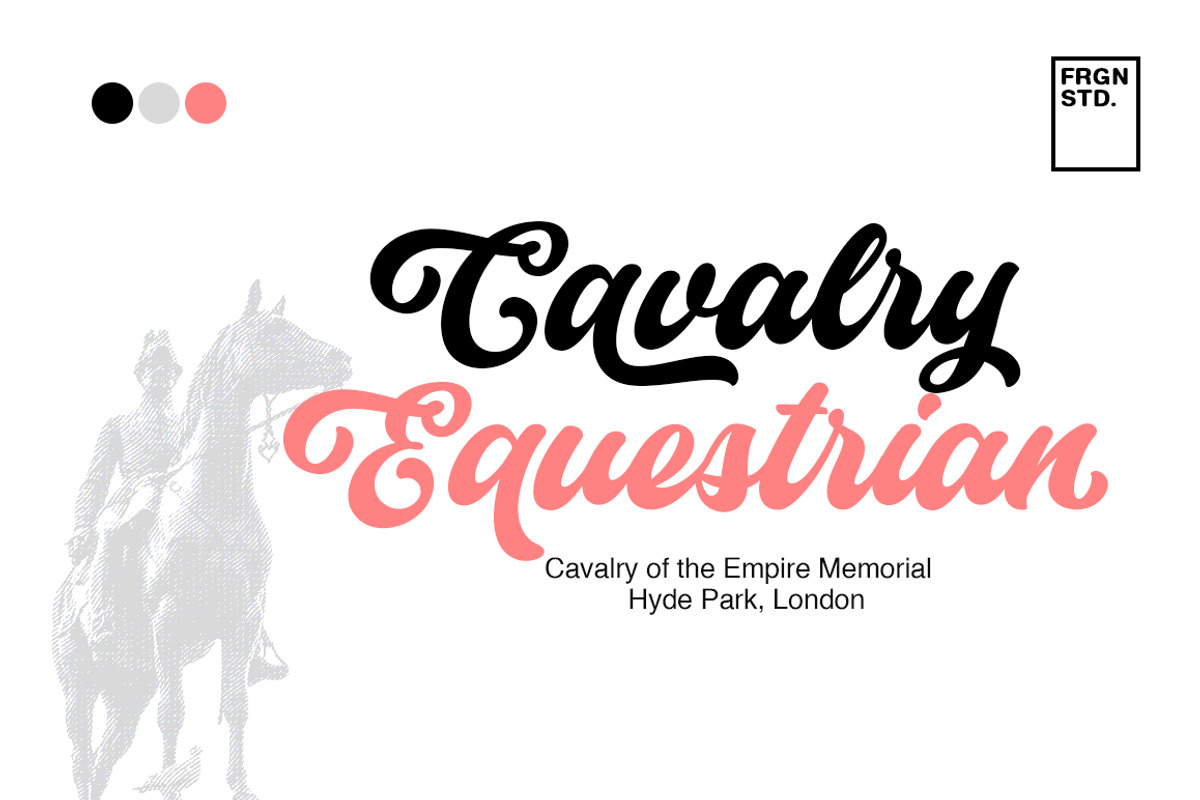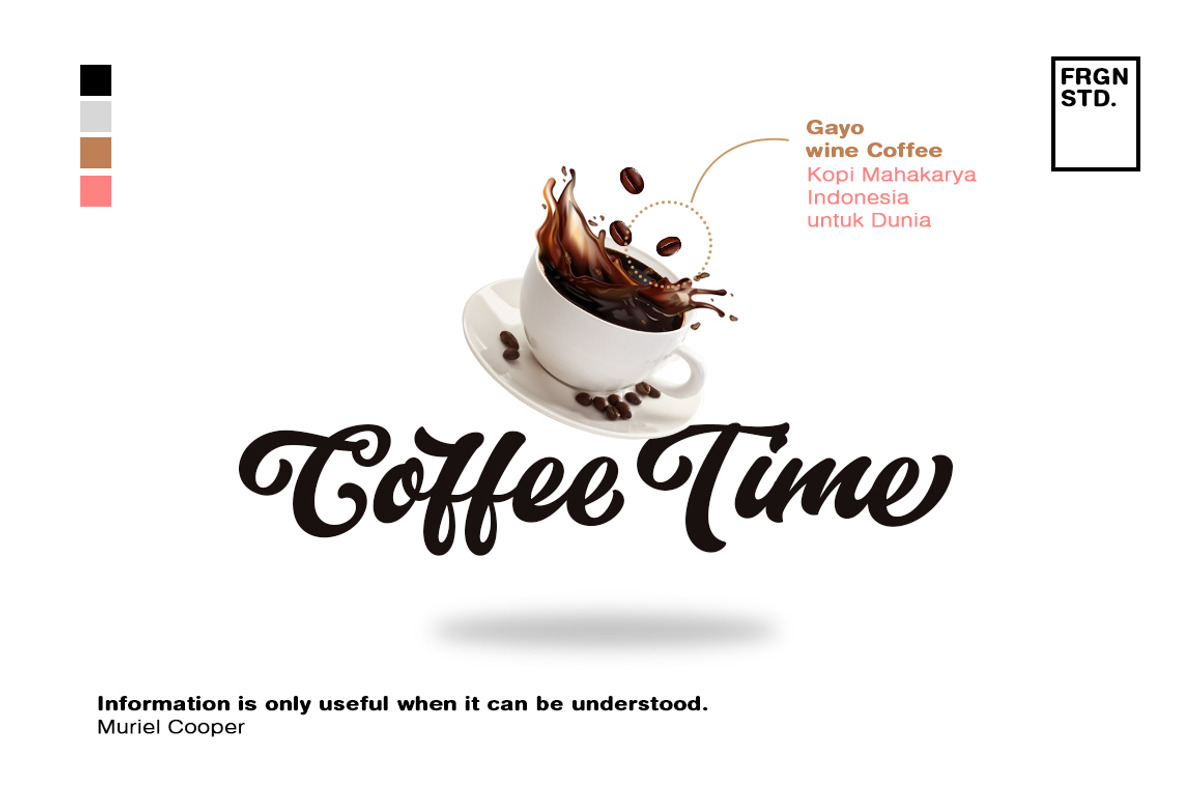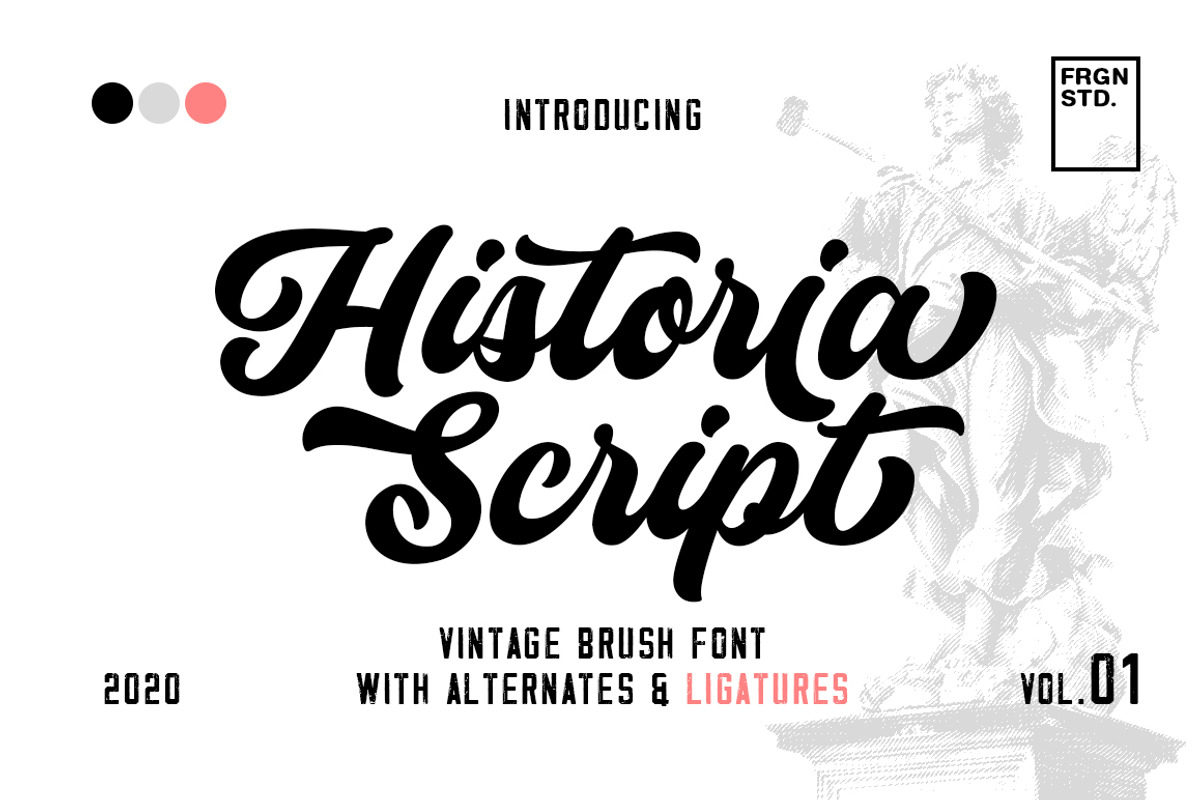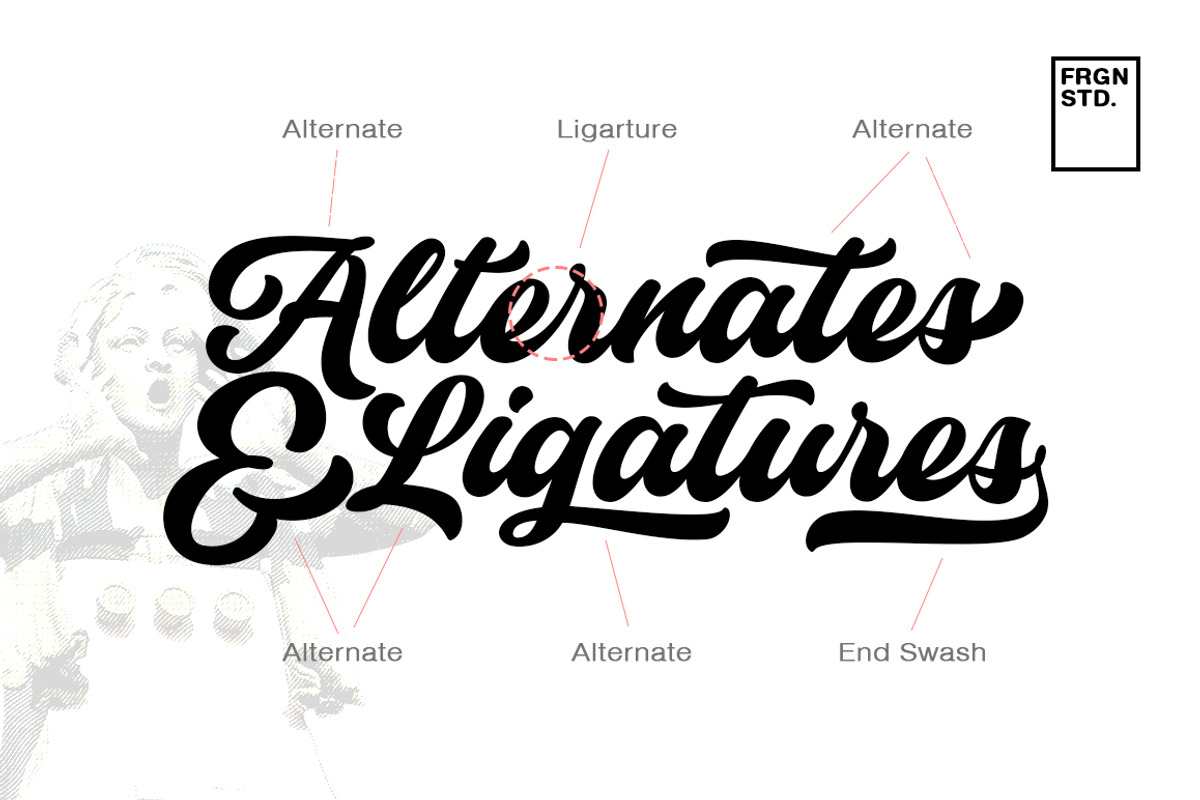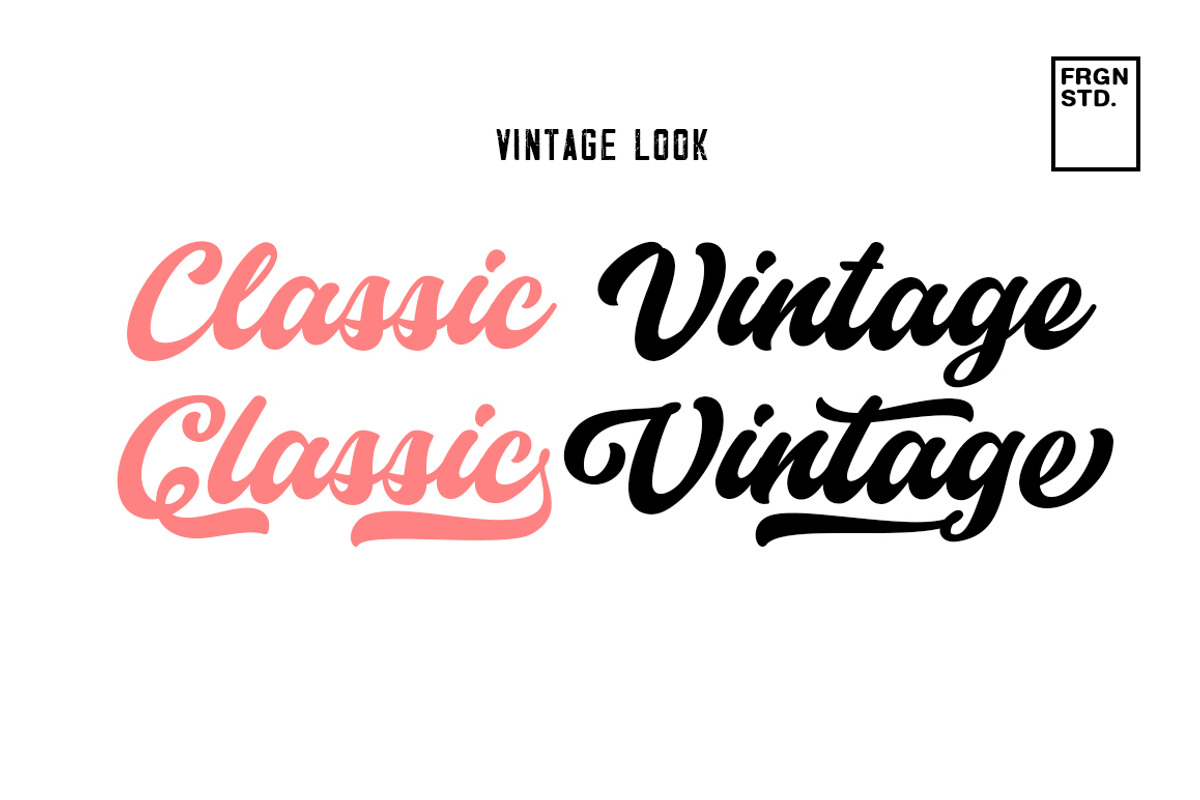
Historia Font
Introducing new vintage style font!!
Historia script is the stylish vintage look font. Come with ligatures, stylistic alternate, stylistic set and end swash to make your own design look perfect. Can be used for various purposes. such as headings, signature, logos, vintage wedding invitation, t-shirt, letterhead, signage, label, news, posters, badges etc.
- Come with ligatures, stylistic alternate, stylistic set and end swash to make your own design look perfect.
Historia Font by Fargun Studio fits naturally into Branding, posters, packaging, typography.